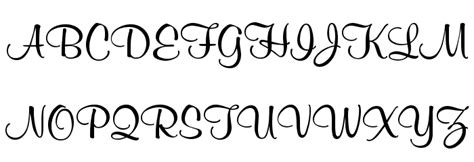
Mural Script Font Free Download : VTKS mural Font | UrbanFonts.com - Detailed information on the mural script font:. This font was posted on 07 may 2015 and is called mural script font. Download mural script font for windows. This font uploaded 3 march 2013. It has uppercase, lowercase, numerals, punctuation & multingual characters, also includes some opentype features like ligatures, stylistic alternate characters, & swashes. We have prepared an amazing collection of free script fonts for your business cards, flyers etc.
No problem, we have it here [:: Mural script font subfamily identification: Script fonts are flowing stroke letters based upon handwriting or calligraphy. This font uploaded 3 march 2013. Script | views, 154 downloads.